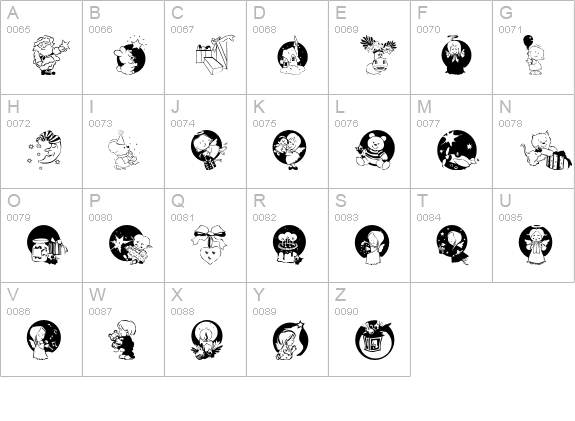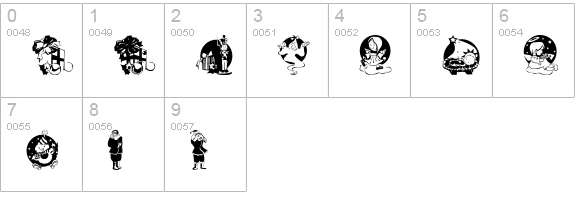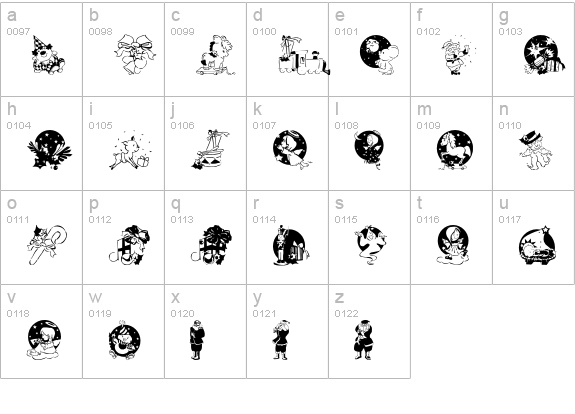
XmasPromotionsSymbols Font Details
Get into the holiday spirit with XmasPromotionsSymbols font! This festive and whimsical font is perfect for adding a touch of Christmas magic to your designs. With a wide range of holiday-themed symbols and icons, XmasPromotionsSymbols font is sure to bring cheer to your projects. And the best part? It's completely free to download at FontsMarket.com! Don't miss out on this special offer to elevate your holiday designs with this charming font. Spread the joy and creativity this Christmas season with XmasPromotionsSymbols font at your fingertips.